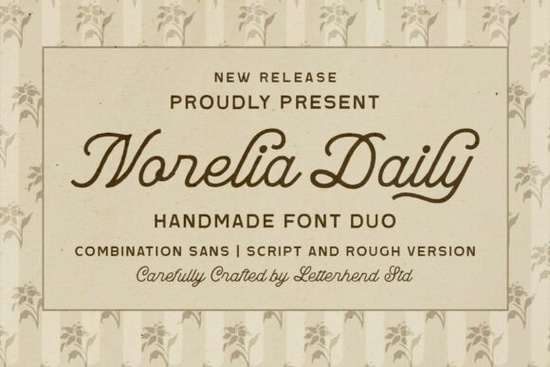
If you're looking for a script font that feels personal, relaxed, and quietly confident like handwriting you'd trust to sign a thank-you note or label a jar of homemade jam Norelia Daily Font fits right in. It’s not flashy or overly decorative. Instead, it balances a smooth monoline script with a clean, friendly sans-serif companion, plus optional rough textures that soften edges just enough to feel handmade not hurried.
What makes Norelia Daily different from other script fonts?
Most script fonts lean either formal or playful but Norelia Daily sits comfortably in the middle. Its letters flow without tight loops or exaggerated swashes, so it reads clearly at small sizes (think product tags or Instagram captions) while still carrying warmth. The included rough variants aren’t distressed for effect; they mimic the subtle inconsistencies of real pen-on-paper ideal when you want authenticity without sacrificing legibility.
The sans-serif companion is equally thoughtful: no harsh geometry, no cold neutrality. It’s got gentle curves and open letterforms, so pairing it with the script feels natural not like two separate fonts forced together. That harmony matters most when building cohesive branding: café menus, candle labels, wedding stationery, or even a small-batch skincare line where tone and texture are part of the story.
Where does Norelia Daily work best?
This isn’t a one-size-fits-all font but it is a great fit for projects where mood matters as much as message. Think:
- Café signage and takeaway cup designs (especially paired with warm neutrals or soft pastels)
- Product packaging for artisanal goods jams, teas, bath salts where “handmade” is part of the promise
- Lifestyle brand logos that aim for calm, grounded energy rather than loud personality
- Social media graphics for small businesses that post real moments, not polished ads
- Print-on-demand items like greeting cards, planners, or wall prints where readability and charm both count
It also handles multilingual Latin-based languages well, including accented characters used in French, Spanish, and Portuguese useful if your audience spans regions or your brand voice leans bilingual.
How does it compare to similar fonts on Creative Fabrica?
If you’ve browsed script fonts before, you might recognize how Norelia Daily shares quiet confidence with fonts like Family Holiday, which also favors relaxed rhythm over dramatic flair. For a slightly more nostalgic, typewriter-adjacent vibe, Little Typewriter adds mechanical charm but Norelia keeps things softer and more journal-like. Amsterdam leans more structured and upright, while Athaya offers delicate contrast and fine hairlines great for elegance, but less cozy for everyday use. And if you prefer a looser, more expressive handwritten feel, Reflect Handwritten gives you that organic, uneven energy. Each has its place Norelia Daily just happens to live in the space between “I made this myself” and “I want it to look this good.”
- Test both weights together: Use the script for headlines or names, and the sans for body text or descriptors it’s designed to work as a pair.
- Try the rough style sparingly: A single word (“Hand-poured,” “Small Batch,” “Made With Love”) often carries more weight than applying texture to every line.
- Check spacing in context: Script fonts can tighten or loosen depending on surrounding elements preview on mockups (like a coffee bag or Instagram story) before finalizing.
- Look beyond the preview image: Some fonts shine only when you start typing real words try “morning light,” “slow living,” or your business name to get a true sense of flow.
Remember: the goal isn’t perfection it’s resonance. If your audience pauses just a second longer because the type feels familiar, kind, or gently intentional, you’ve already done the work that matters most.